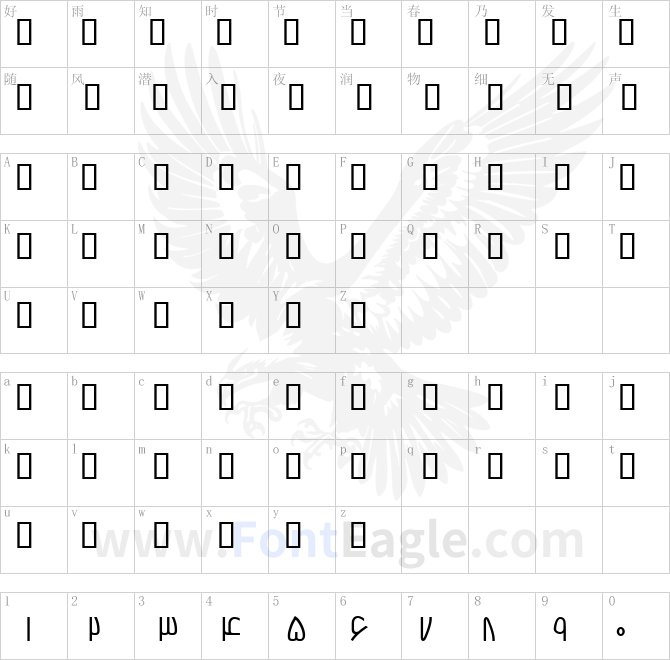
B-Bardiya is a great font, widely used in graphic design, single-page menu design, poster design and other fields, and is deeply loved by designers.B-Bardiya download.